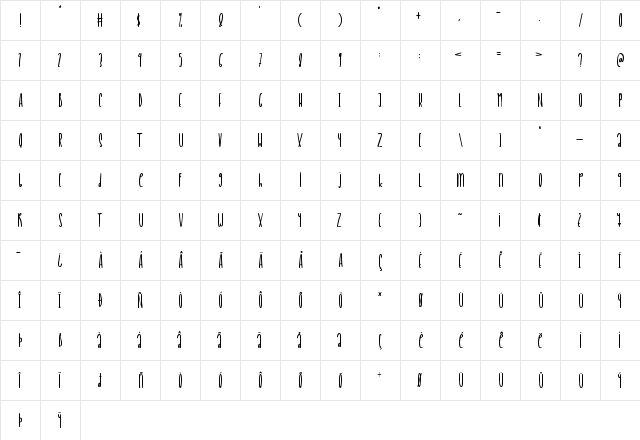
Delight Cookies Regular
| Designer | Muhamad Yusron Billah |
Design Context for Delight Cookies Typeface
Delight Cookies is a composed and adaptable typeface that performs quietly and consistently across a wide range of design contexts. Its slender proportions lend an understated elegance to any composition.